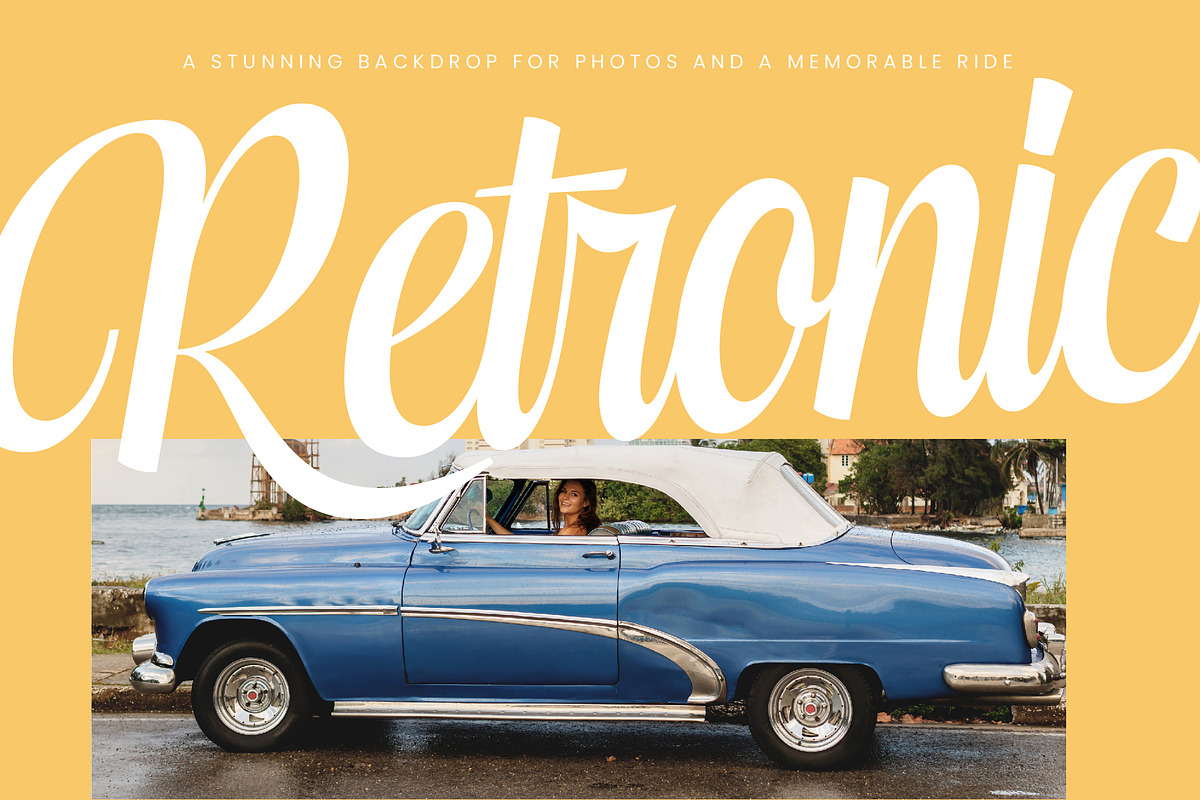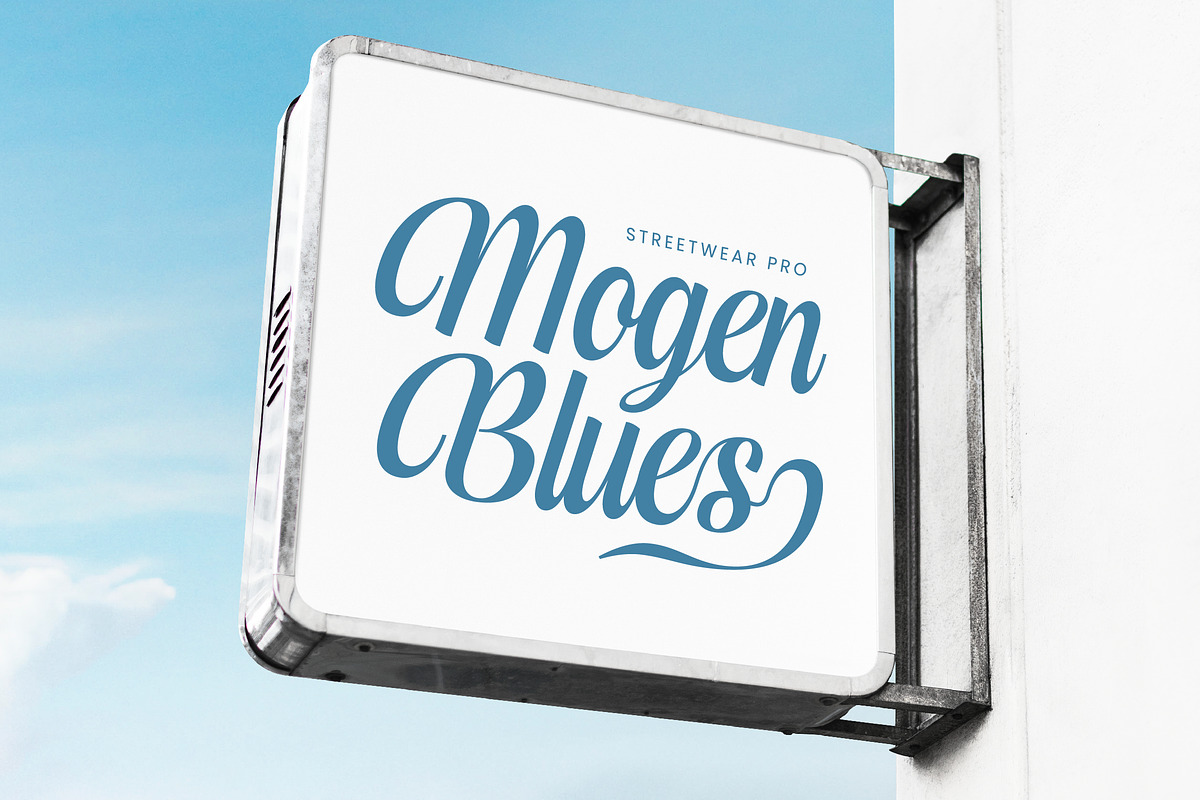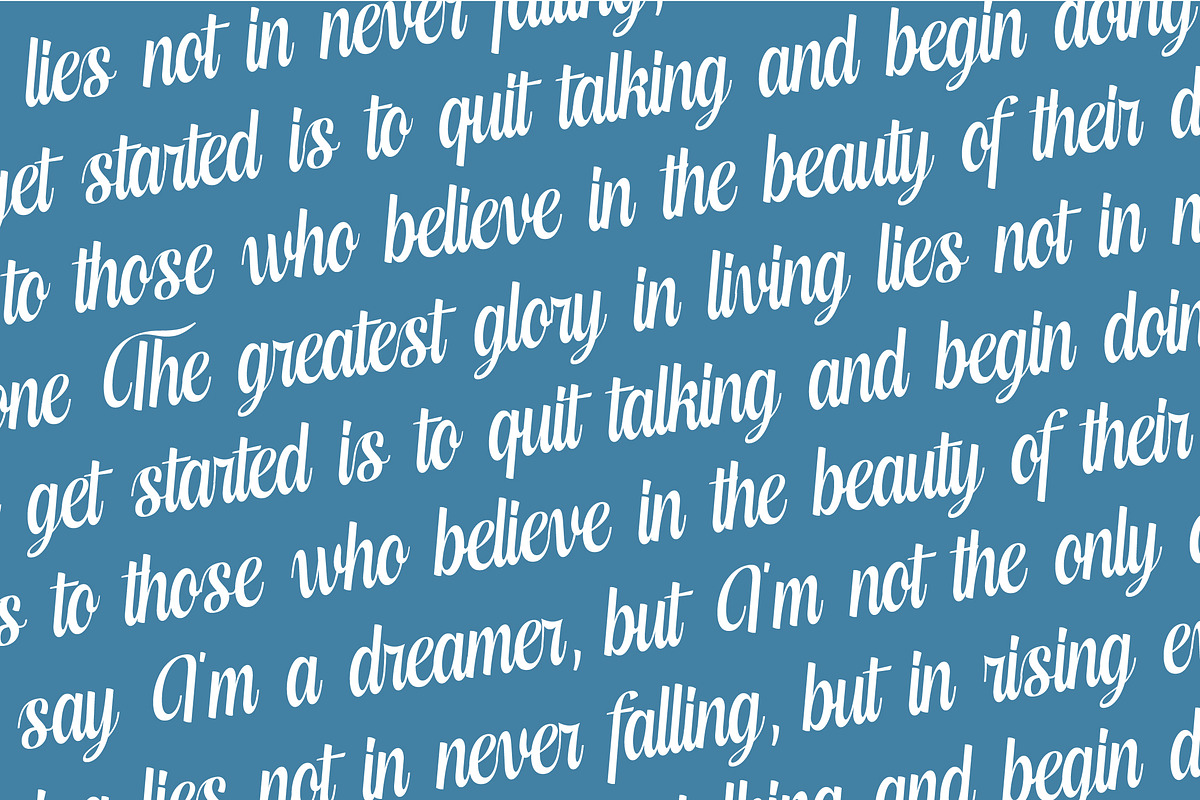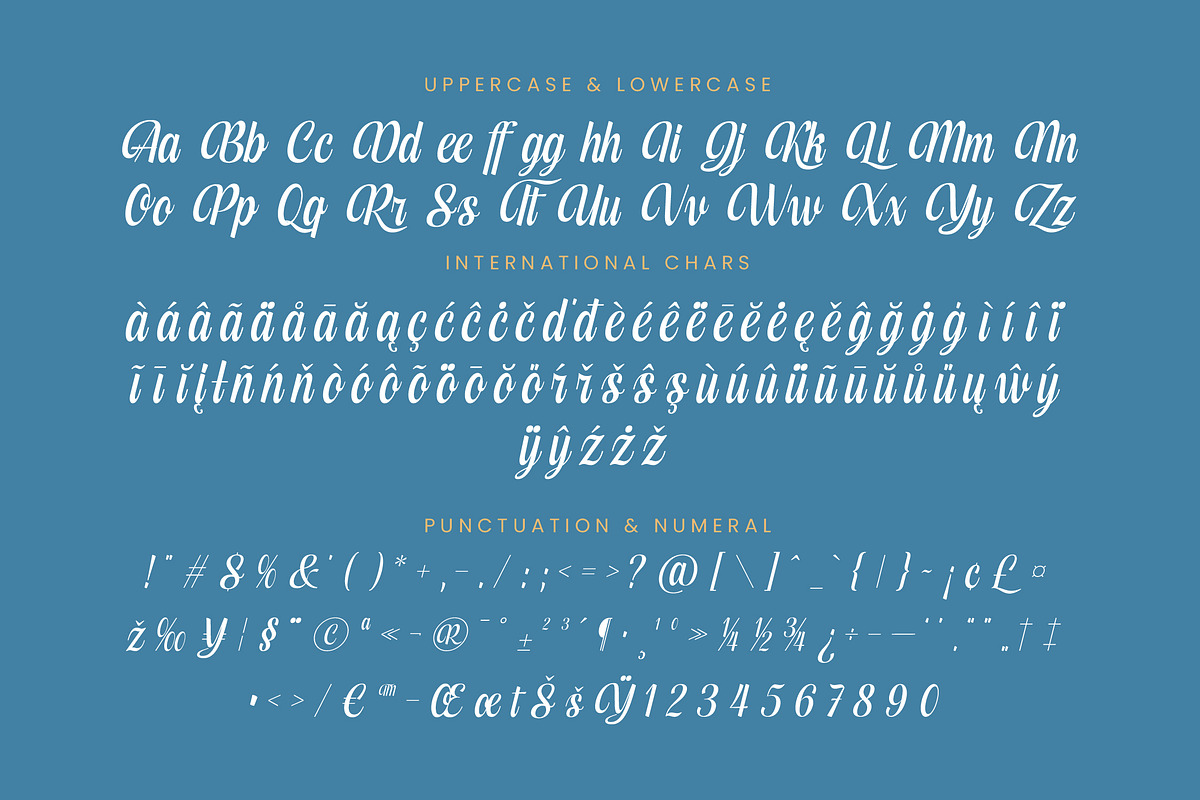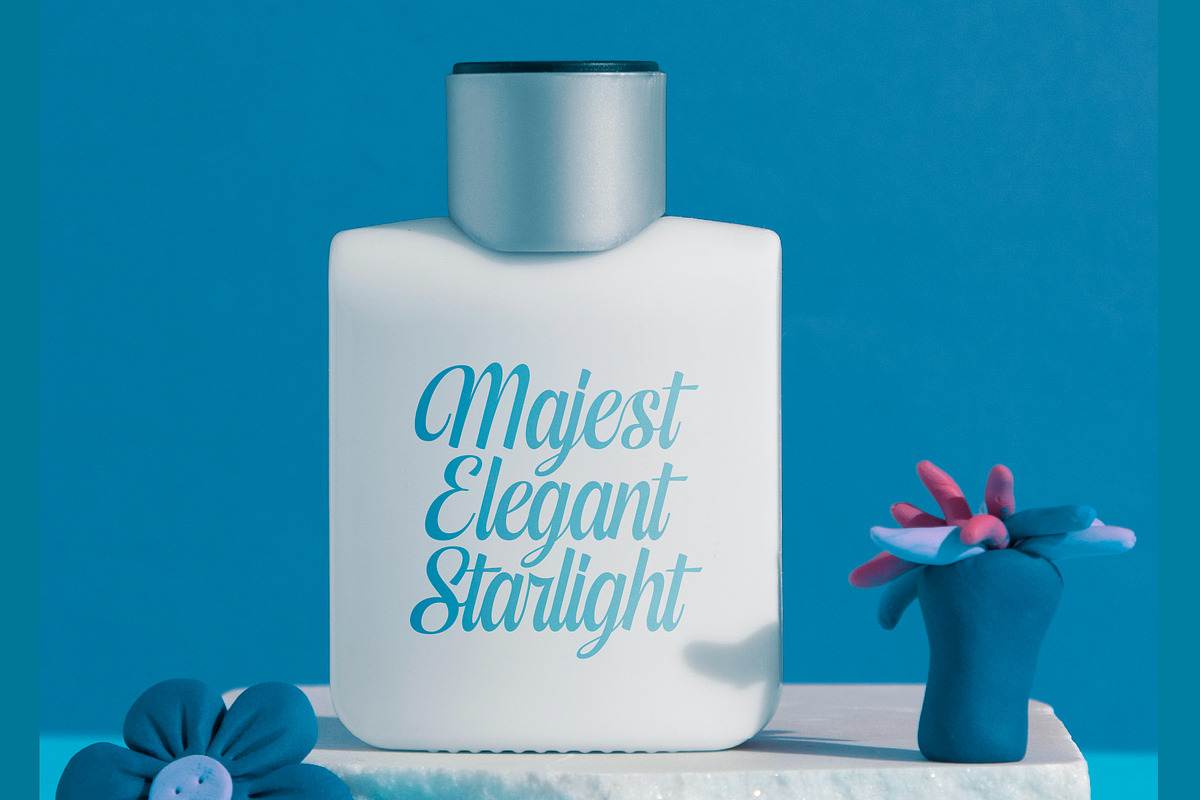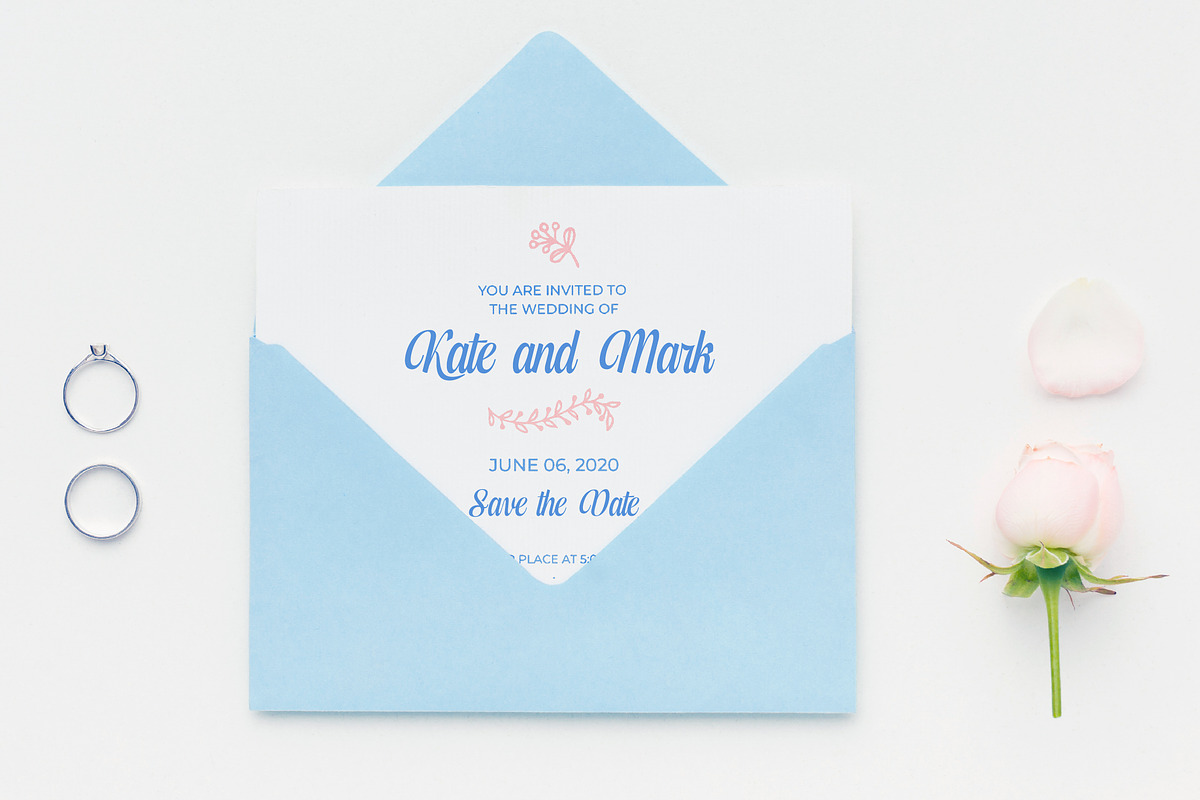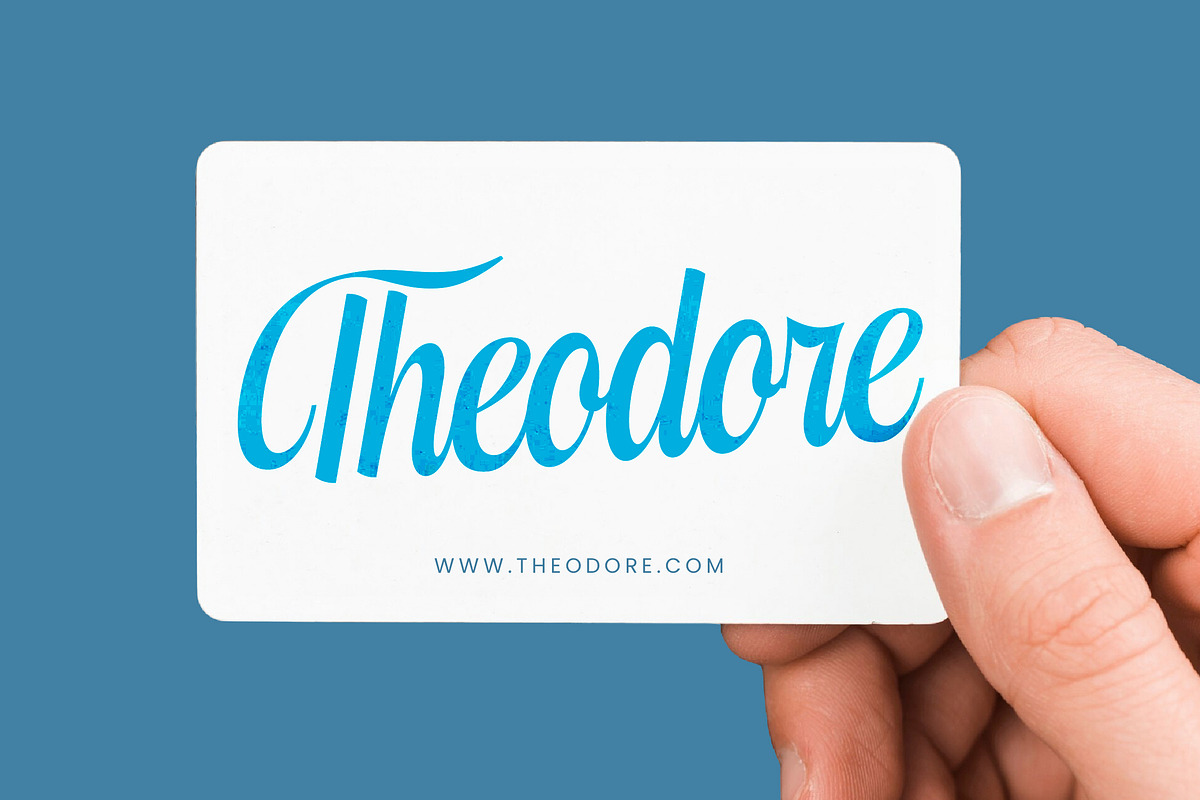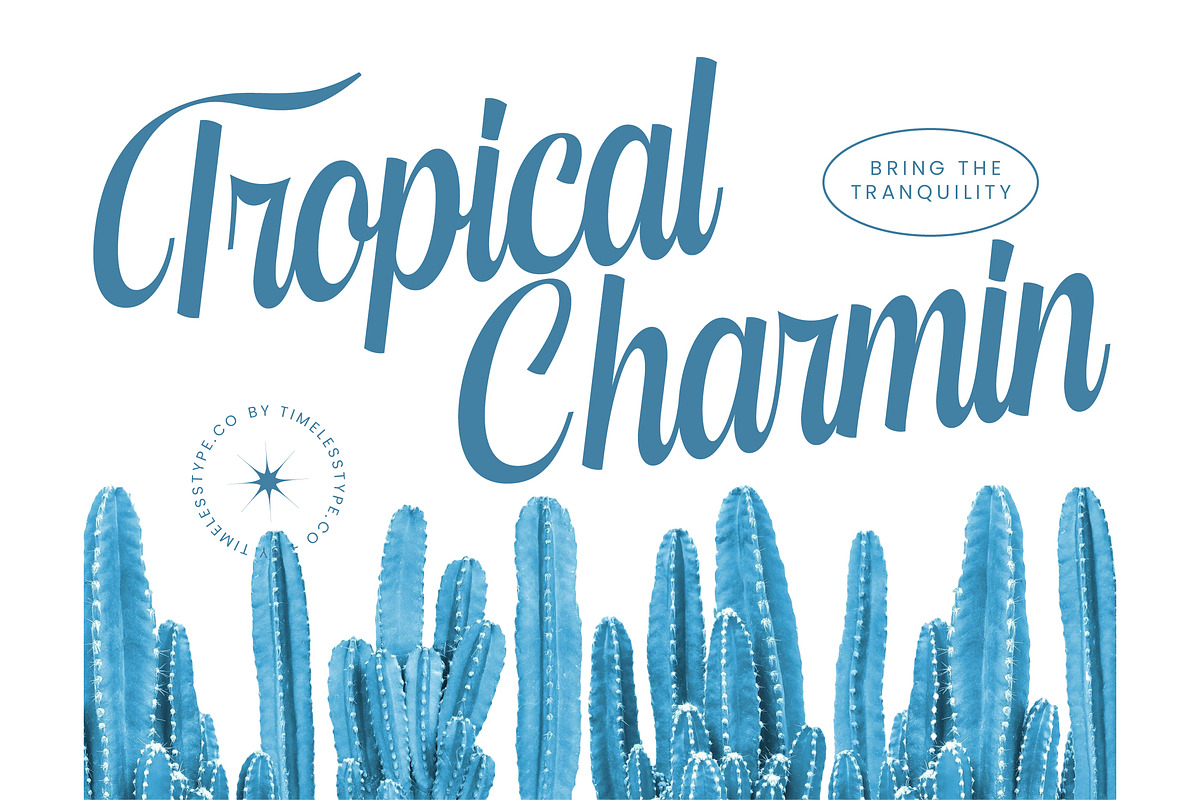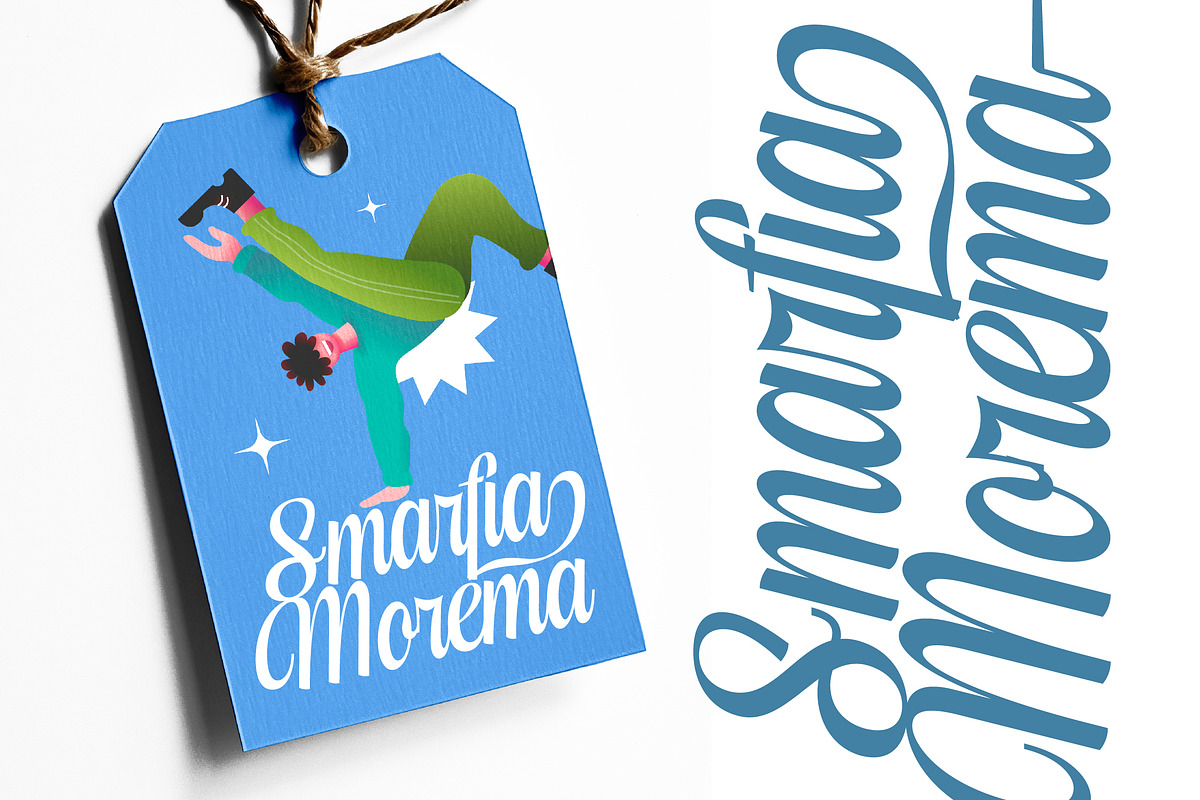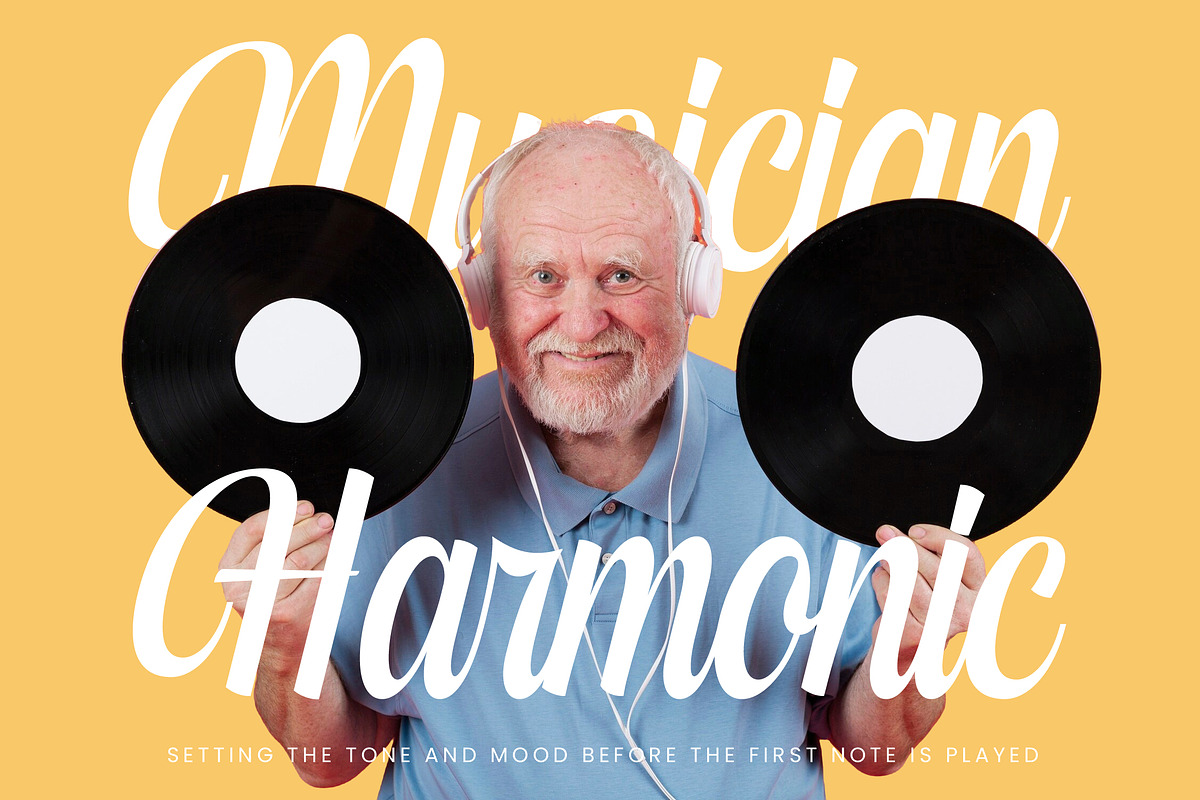
Kameli Antares Modern Calligraphy
Kameli Antares is a breathtaking display of fluid elegance, capturing the essence of timeless romance in every hand-drawn stroke. This font invites you to experience a world where every letter tells a story of grace and high-end sophistication.
Drawing inspiration from the soft movements of silk catching the wind, this typeface reflects a serene and airy atmosphere. Its design evokes the feeling of a golden hour sunset, blending organic beauty with refined artistic craftsmanship for a truly bespoke look.
As a modern script font, it delivers a powerful branding impact through its luxury typography and fluid curves. This editorial font provides a character-driven typography experience that perfectly balances contemporary aesthetics with classical calligraphic foundations.
Staying ahead of the modern script trend, this font fits perfectly within the current demand for editorial display fonts. Designers looking for high-contrast calligraphy will find it essential for creating high-end visual identities that stand out in a saturated marketplace.
It is the ultimate choice for logo design and high-end branding projects where a personal touch is required. From premium editorial layouts and luxury packaging to romantic wedding invitations and high-fashion magazines, it adapts beautifully to various contexts.
This comprehensive package includes stunning ligatures and over 190 alternates to help you customize your designs effortlessly. With elegant swashes and full multilingual support for international characters, it offers total creative freedom for global design projects.
- Ligature 4 Alternate 190